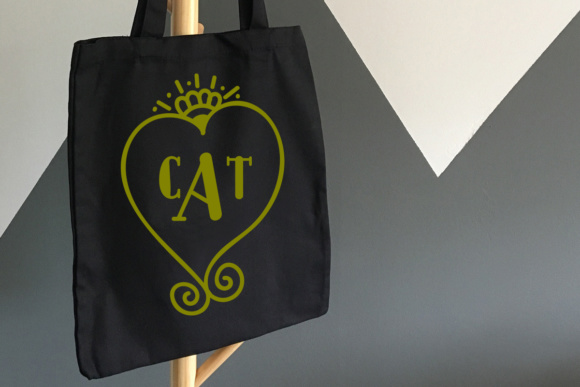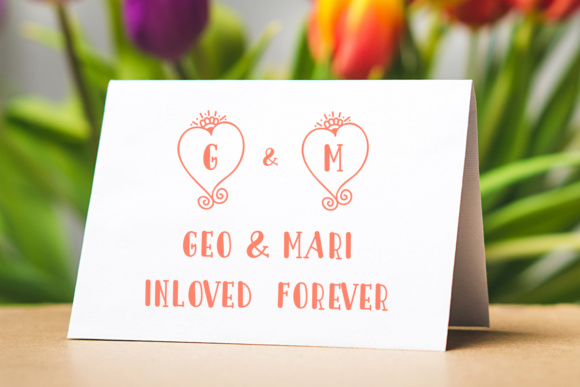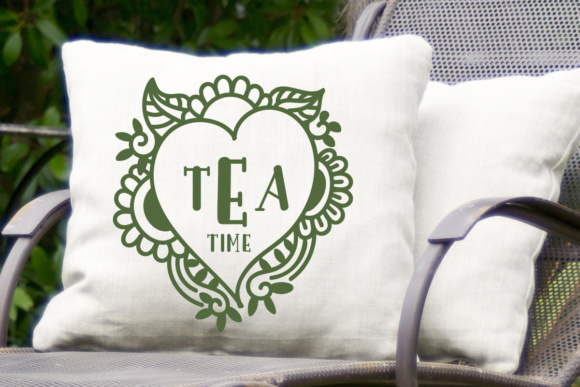
About Heart Monogram Font
The Heart Monogram is a stunning monogram font. You can add up to 3 letters in 1 heart, simply by using a lowercase, UPPERCASE, lowercase combination. For example: aBc
It comes with 2 different types of hearts and also includes numerals and the + and & symbols. You can create stunning heart monogram frames with these symbols.
This is truly an unique font that’s great for weddings, love, nursery & family designs. Whenever a loved one is involved, you know for sure that the Heart Monogram will be able to help you out.